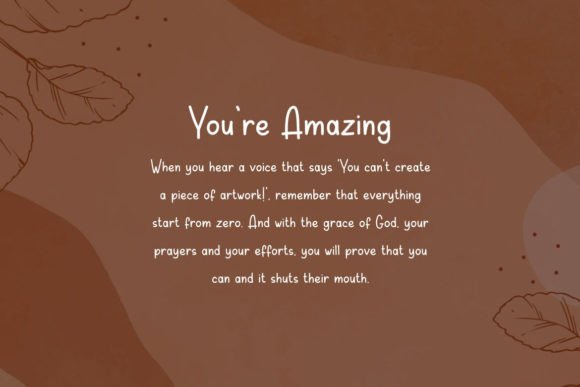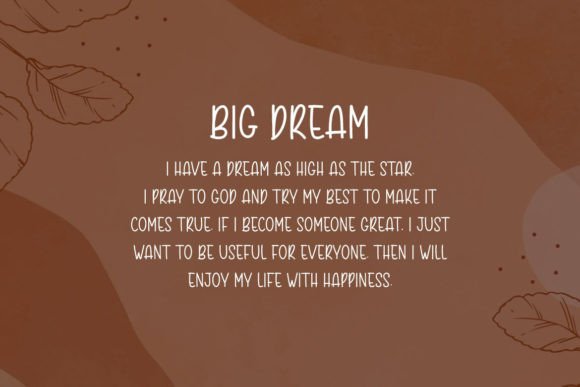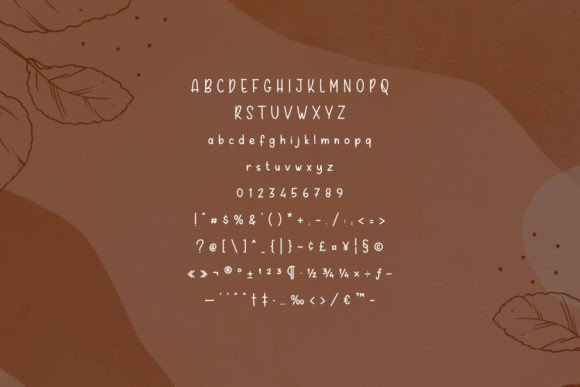
Introducing Bear Hunter: The Ultimate Comic Font for Creative Projects
Are you a designer, crafter, or creative looking for a font that adds a touch of playfulness and charm to your projects? Look no further than Bear Hunter, a delightful and clean comic font that’s perfect for a wide range of applications. In this article, we’ll explore the features and benefits of Bear Hunter, and why it’s the perfect addition to your font collection.
The Perfect Balance of Readability and Character
Bear Hunter strikes the perfect balance between readability and character, making it suitable for use in comics, children’s books, posters, invitations, and any other creative endeavor. Each letter is meticulously designed to ensure clarity and legibility, while retaining the quirky and fun essence of classic comic fonts. Whether you’re creating a children’s book or a playful poster, Bear Hunter is the perfect choice.
Clean and Precise Design
Crafted with precision and care, Bear Hunter is a clean and modern take on the classic comic font. The font features clean lines, simple shapes, and a clear structure, making it easy to read and understand. The design is also highly versatile, allowing you to use it in a wide range of contexts and applications.
Bear Hunter is perfect for designers and crafters who want to add a touch of personality and charm to their projects. The font is highly adaptable, and can be used in a variety of contexts, from digital designs to print materials. Whether you’re creating a logo, a poster, or a children’s book, Bear Hunter is the perfect choice.
Key Features of Bear Hunter
- Delightful and clean comic font
- Perfect balance of readability and character
- Meticulously designed for clarity and legibility
- Highly versatile and adaptable
- Clean and precise design
- Suitable for a wide range of applications
Why Choose Bear Hunter?
So why choose Bear Hunter over other fonts? Here are just a few reasons:
- Unique and playful design: Bear Hunter features a unique and playful design that’s sure to capture the attention of your audience.
- Highly legible: The font is meticulously designed for clarity and legibility, making it easy to read and understand.
- Versatile: Bear Hunter is highly versatile and can be used in a wide range of contexts and applications.
- Experiment with different sizes: Bear Hunter looks great in a variety of sizes, from small to large.
- Pair it with other fonts: Bear Hunter pairs well with other fonts, so feel free to experiment with different combinations.
- Use it in a variety of contexts: Bear Hunter is highly versatile, so don’t be afraid to use it in a variety of contexts and applications.
In conclusion, Bear Hunter is a delightful and clean comic font that’s perfect for adding a touch of playfulness and charm to your projects. With its perfect balance of readability and character, clean and precise design, and versatility, Bear Hunter is the perfect choice for designers and crafters of all levels. So why wait? Download Bear Hunter today and let your creativity soar!